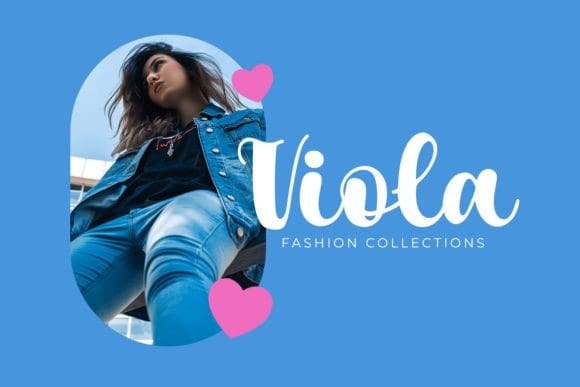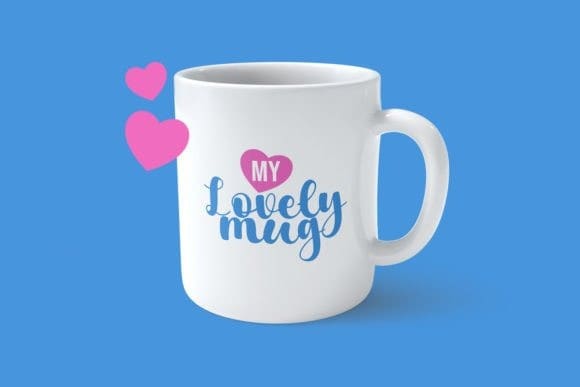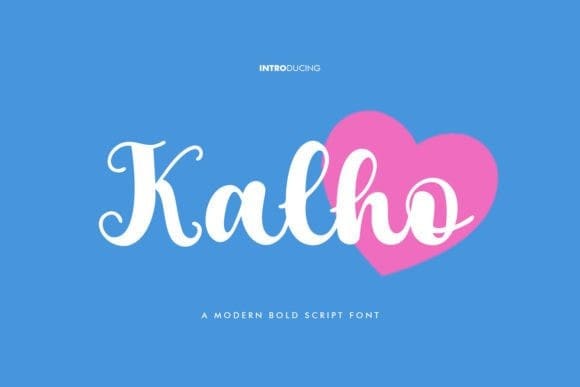
Kalho Script Font
Kalho Script Font, is a modern and cute script font perfect for posters, logos, magazines, book covers, banners, and many more! Get this amazing font, and use it to create lovely designs. It can easily be matched to an incredibly large set of projects, so add it to your creative ideas and notice how it makes them stand out!